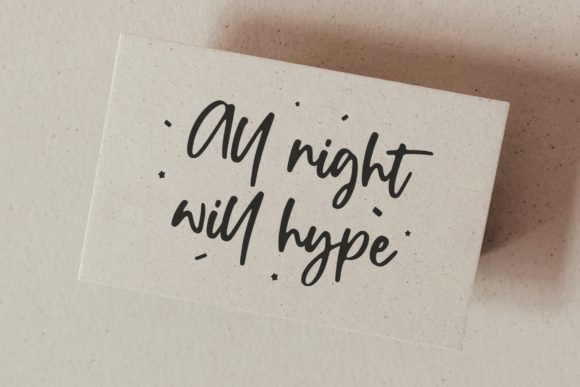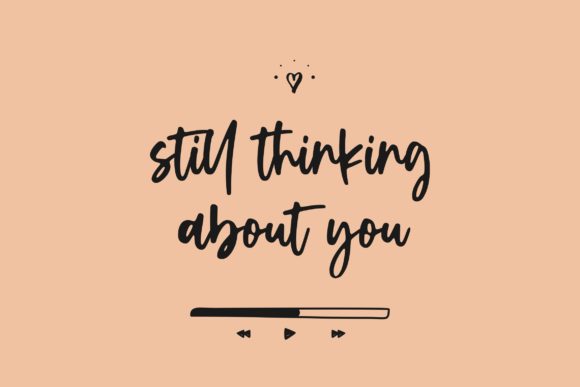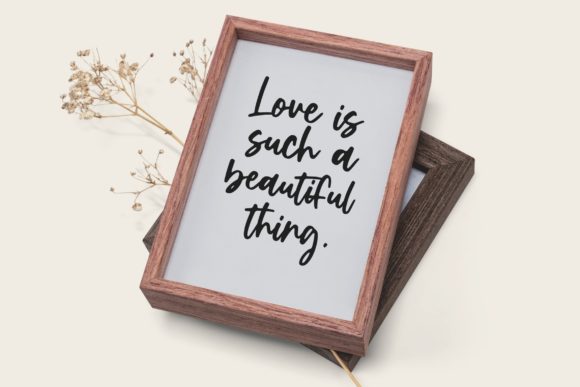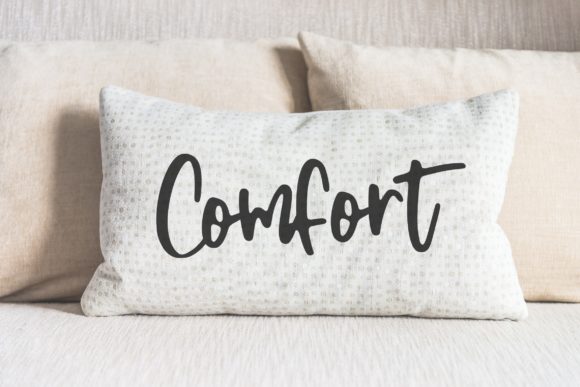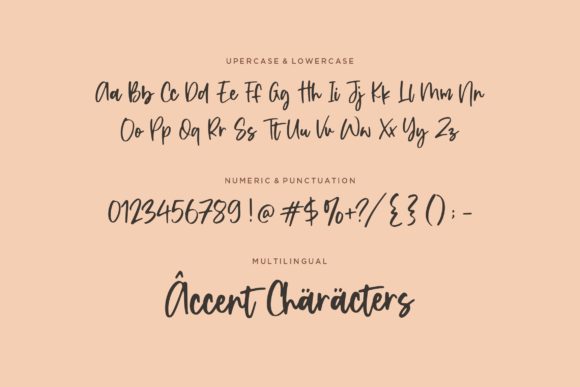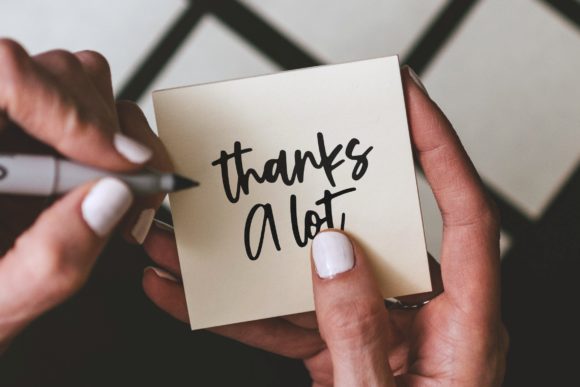
Shadow Party Font
About Shadow Party Font
Shadow Party is a flowing handwritten font, described by an elegant touch, perfect for your favorite projects. Fall in love with its incredibly distinct and timeless style and use it to create spectacular designs!